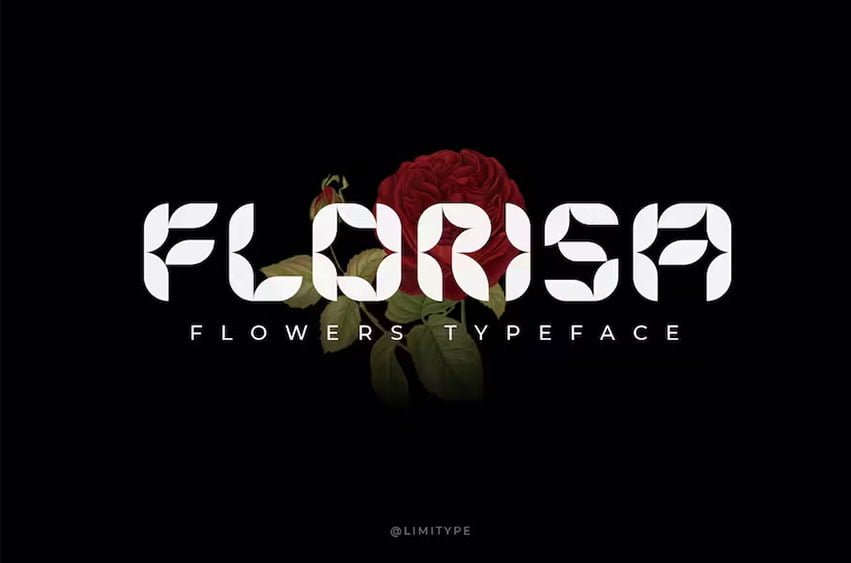
Florisa Flowers Font is a typeface inspired by the unique shape of flower petals, which are made into unique letters. Florisa can be used for displays, headlines, poster etc.